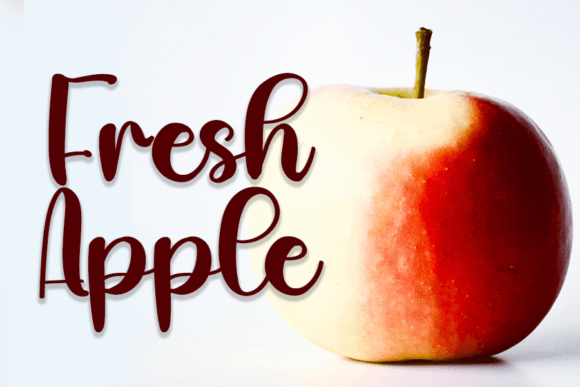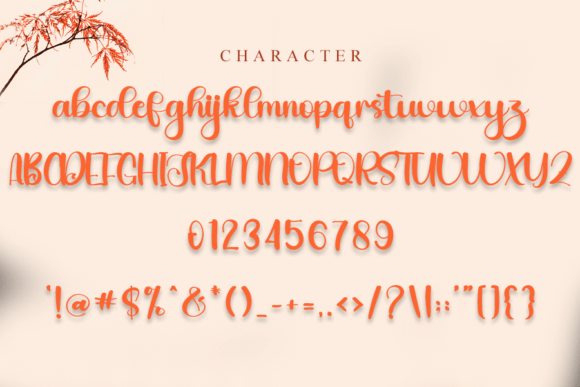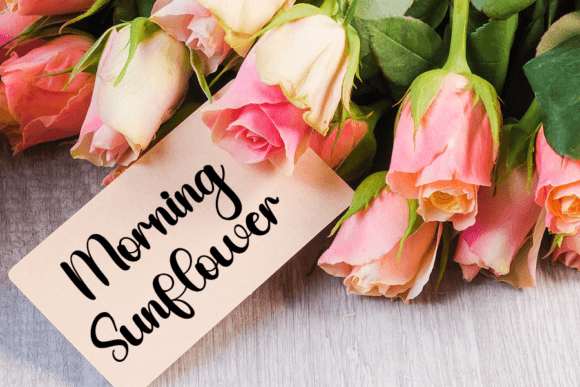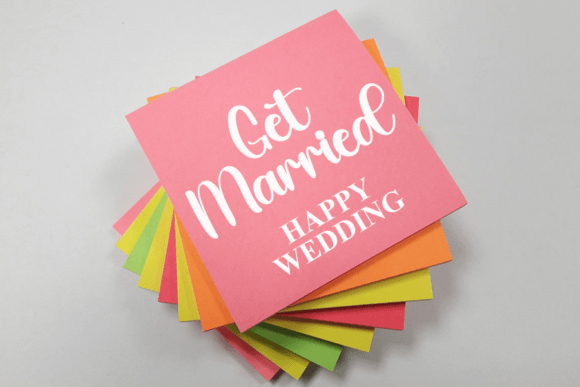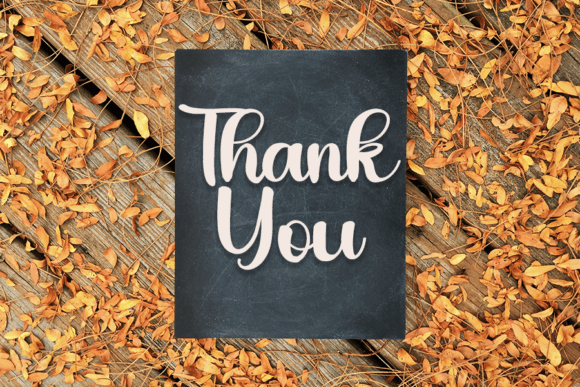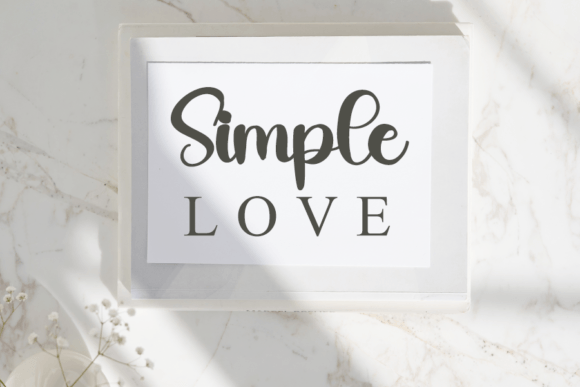
The Perfect Partnership: Unveiling the Always Together Font
There’s nothing quite like the thrill of bringing a creative project to life. As a designer, you’ve spent hours pouring over ideas, perfecting every detail, and waiting for that elusive spark that ties everything together. And then, it happens – a font catches your eye, and suddenly, your entire vision clicks into place. For many of us, that moment of magic is what makes all the hard work worth it.
That’s where the Always Together Font comes in – a stunning, handwritten font that’s designed to elevate your projects to new heights. With its contemporary atmosphere and impeccable form, this beautiful font is inspired by timeless classic calligraphy. Whether you’re crafting a wedding invitation, designing a brand logo, or simply adding a touch of elegance to a blog post, the Always Together Font is the perfect partner in crime.
As a valuable addition to any designer’s toolkit, the Always Together Font offers a level of sophistication and style that’s hard to find elsewhere. Its balanced and varied design makes it the perfect choice for a wide range of projects, from elegant to playful and everything in between.
Always Together Font Key Features
- Font Family: Always Together Font is a unique, hand-drawn font family with a mix of modern and vintage elements.
- Size: Each font style comes in 6 weights, ranging from Light to Extra Bold, to cater to various design needs.
- Resolution: Optimized for use at resolutions up to 300 DPI, ensuring crisp and clear text display in various design contexts.
- Language Support: Supports a wide range of languages, including Latin, Cyrillic, and Greek scripts, making it suitable for global design projects.
- Unique Characteristics: Features intricate details, subtle texture, and a mix of geometric and organic shapes, adding a touch of personality to any design.
Designer Review: Always Together Font
Overall, I found the Always Together Font to be a lovely, whimsical addition to any design project. ✨ Its elegant, handwritten feel is perfect for adding a touch of warmth and personality to branding materials, advertising, or even digital interfaces.
Here are some of the features that really stand out:
- ✨ Unique character set: The Always Together Font offers a wide range of characters, including swashes and ligatures that add to its charm.
- ✨ Beautifully crafted: The font’s subtle imperfections and nuances give it a truly handcrafted feel.
- ✨ Versatile: From display headings to body text, Always Together Font is a great choice for a variety of design applications.
However, I did encounter a few limitations:
- ⚠️ Limited language support: The font’s character set is largely focused on Latin-based languages, which may limit its use for designs targeting other languages.
- ⚠️ May not be suitable for small text sizes: Due to its cursive nature, the font can become difficult to read at very small text sizes.
Overall, I would highly recommend the Always Together Font for designers looking to add a touch of personality to their projects. With a little care and consideration, this font can be a real showstopper.